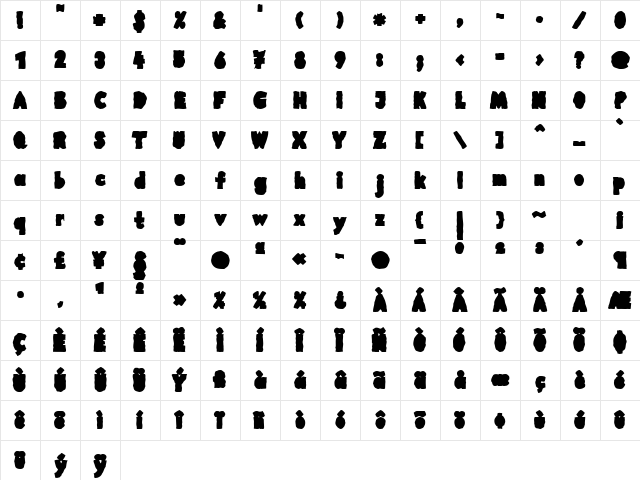
LTMega Out Regular
LTMega Out Family
Design Context for LTMega Out
LTMega Out is a composed and adaptable typeface that performs quietly and consistently across a wide range of design contexts.